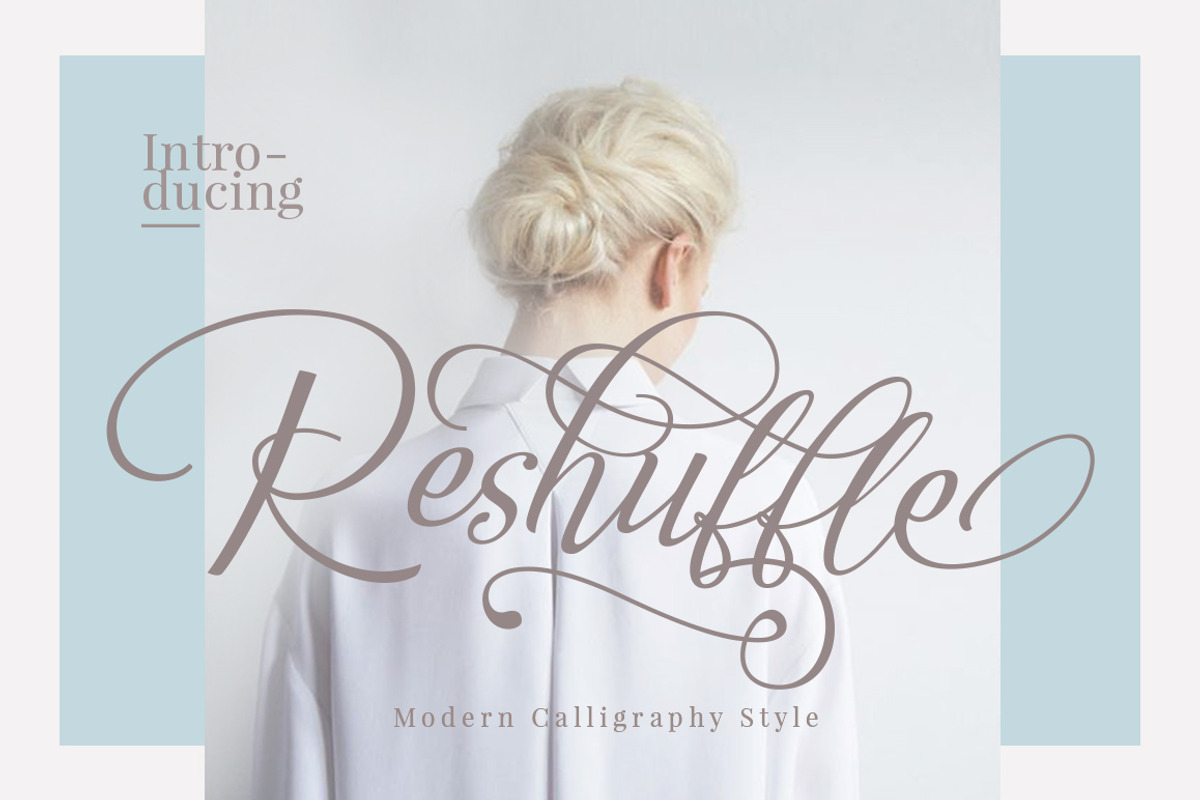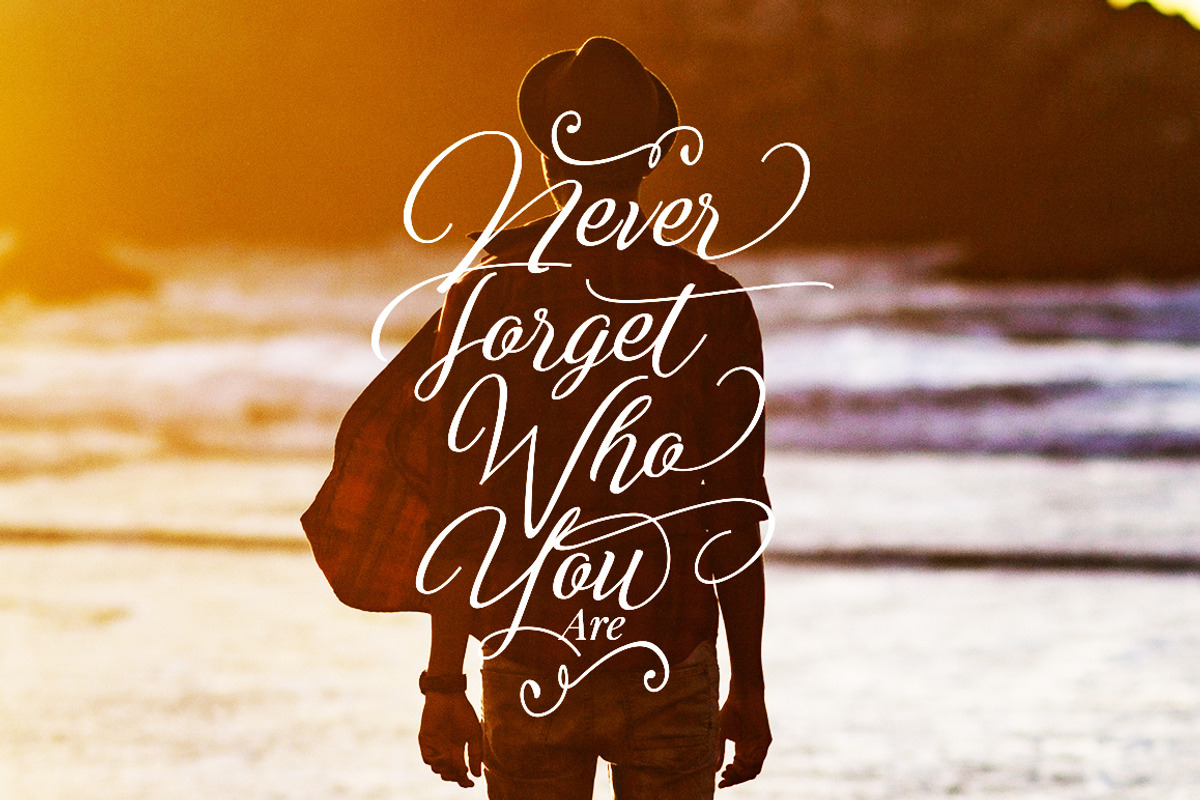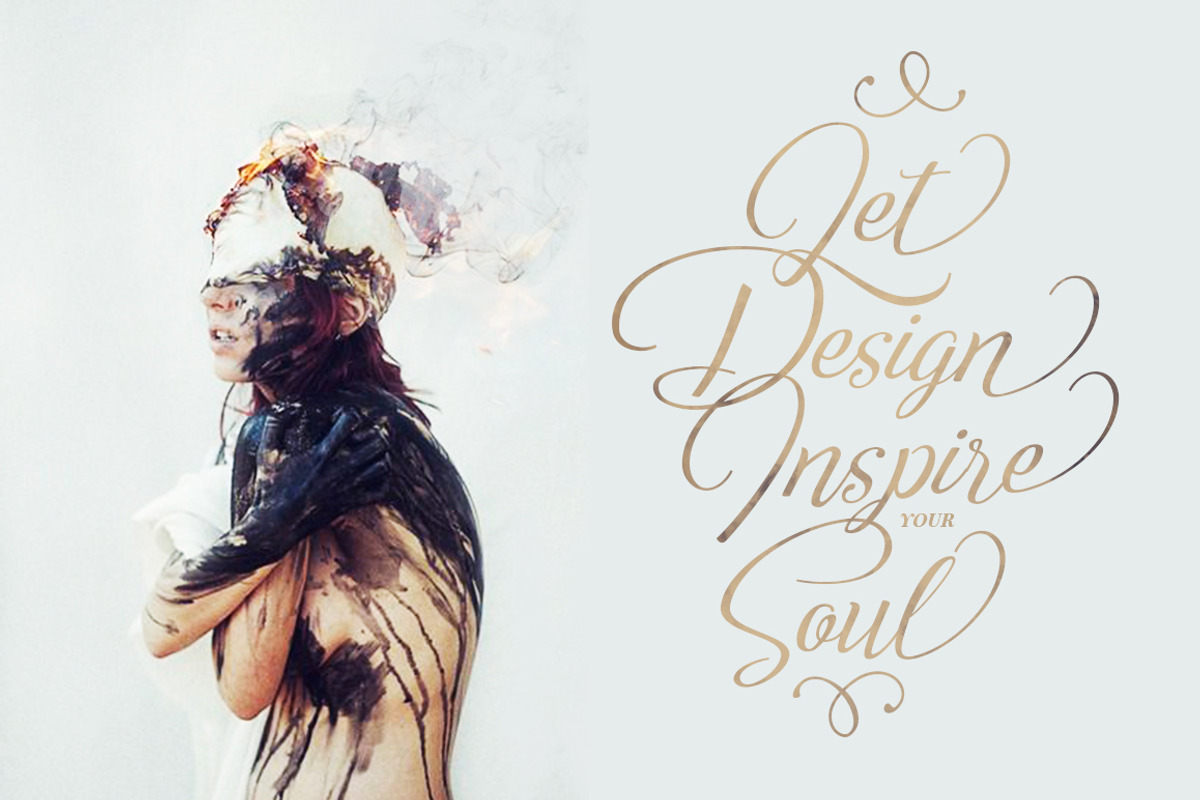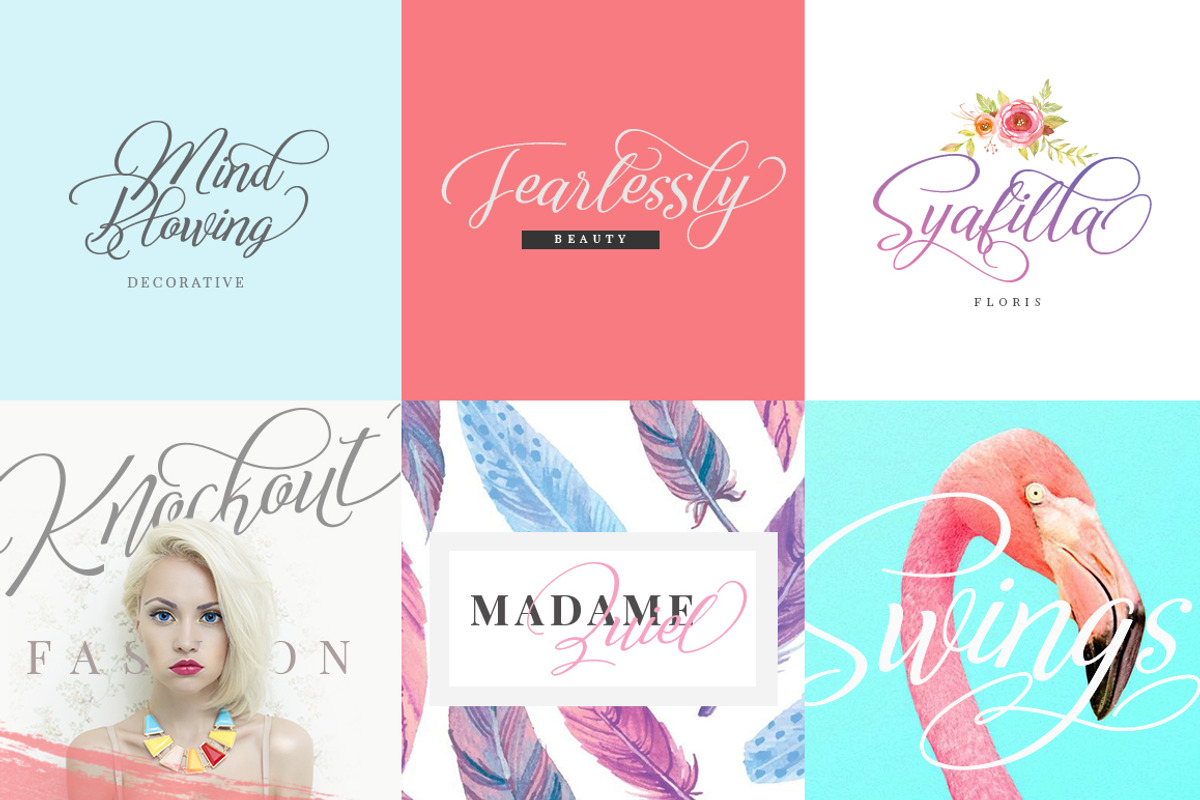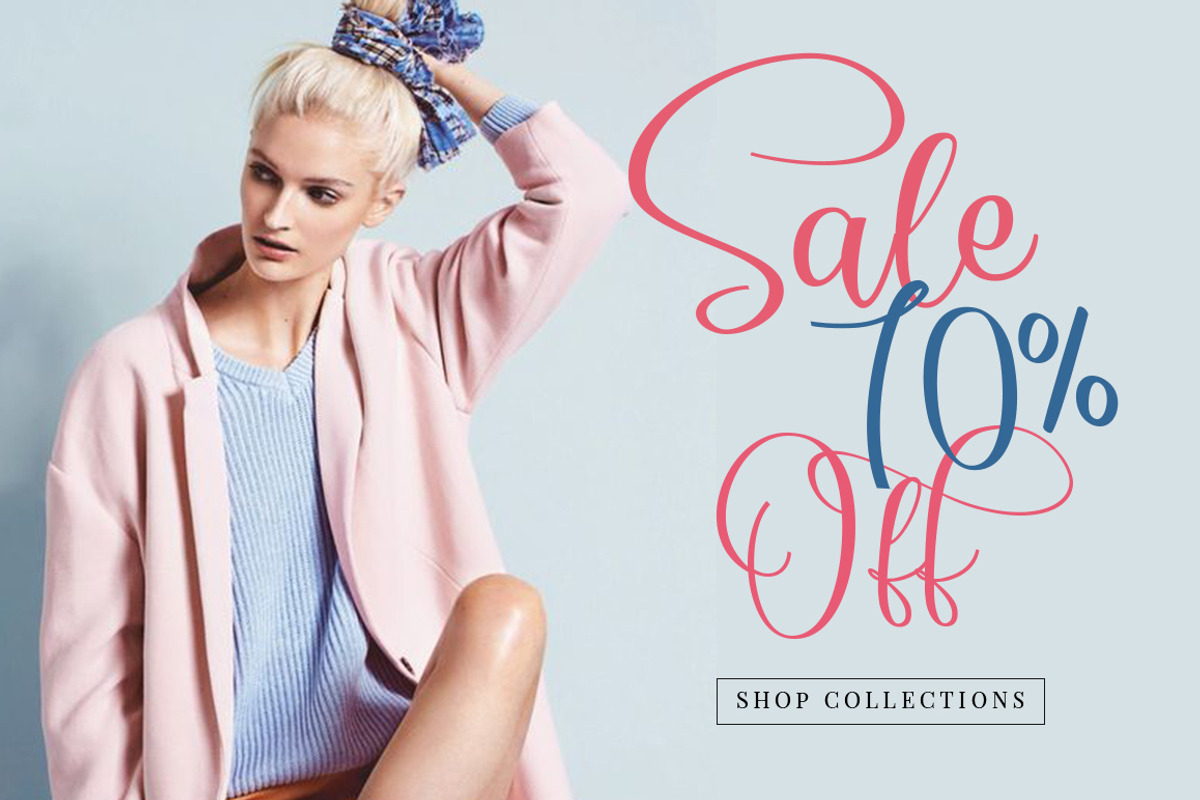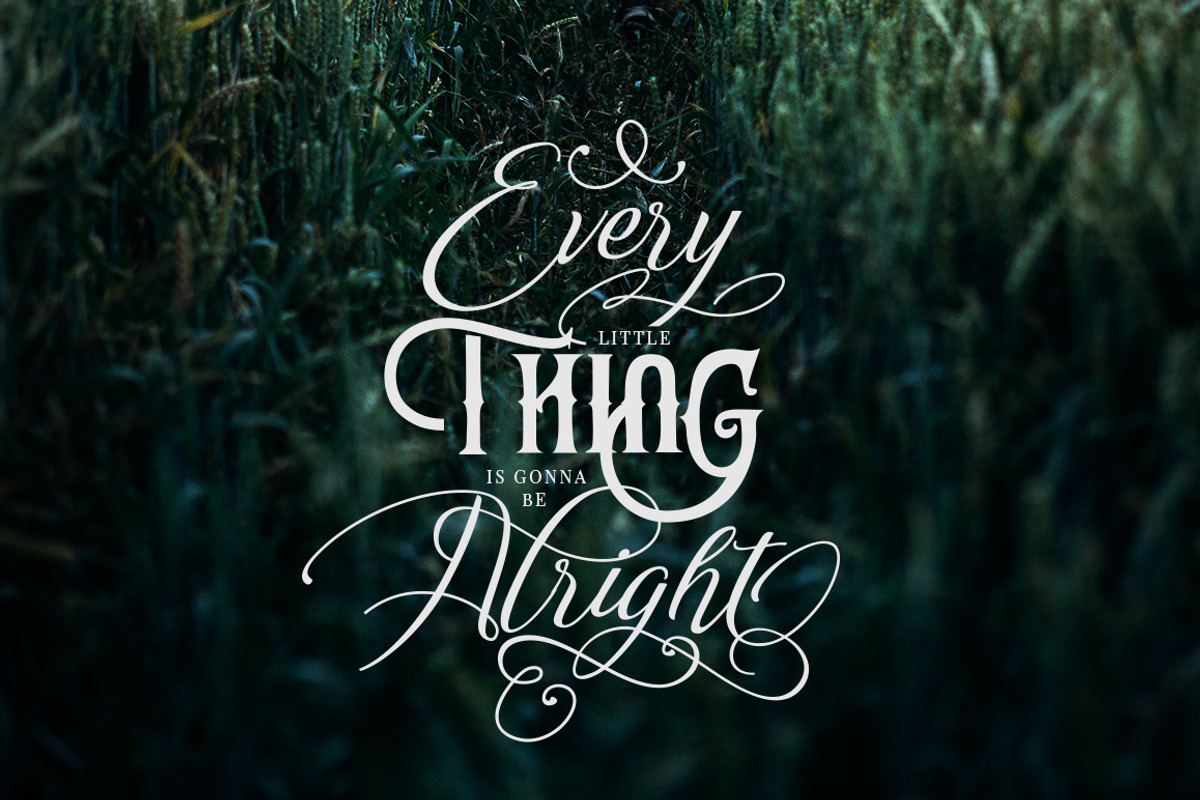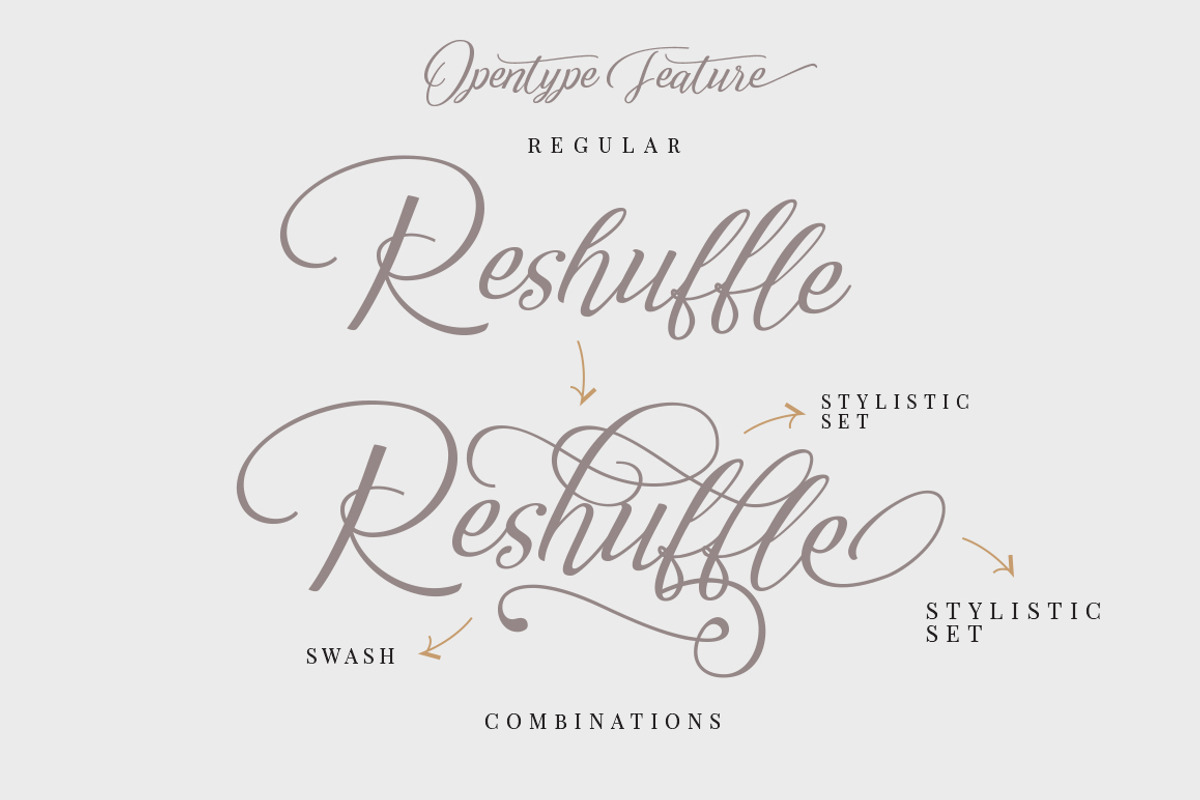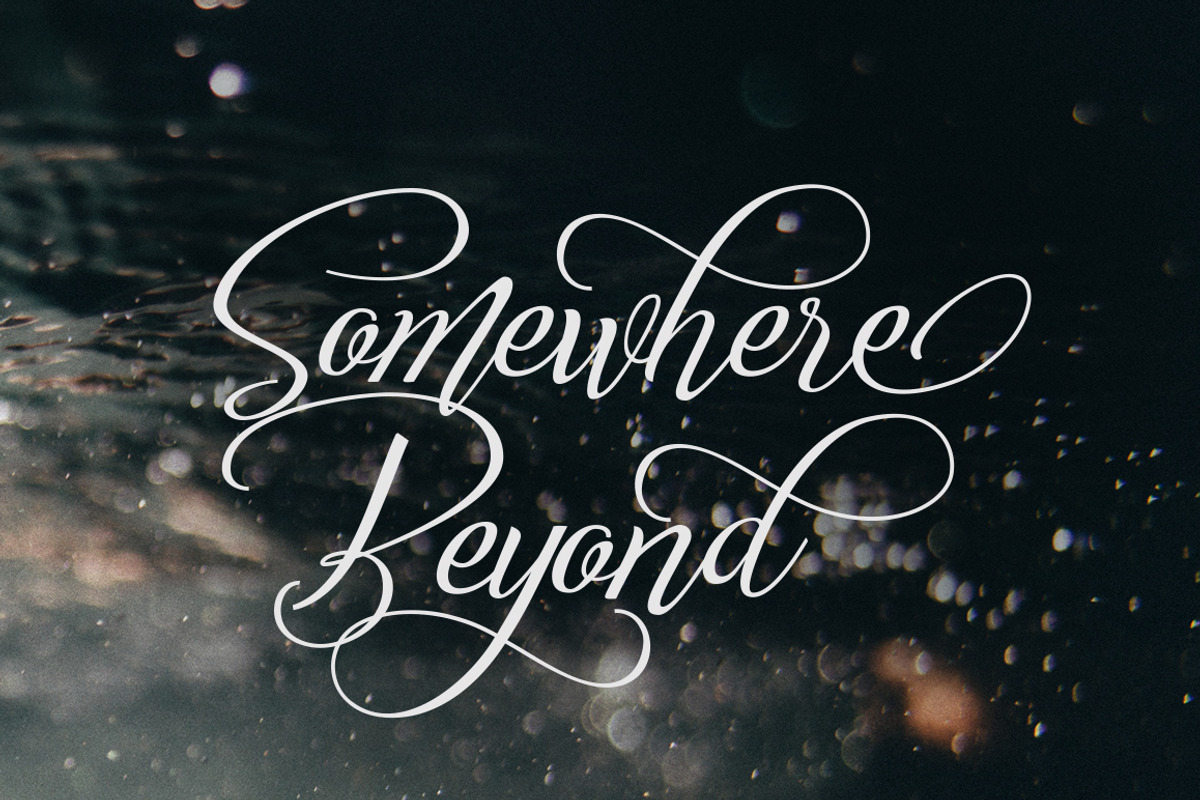
Reshuffle Script Font Set
Reshuffle Script Font Set by Dirtyline Studio is a font selected for branding, posters, packaging, typography.
- Initial Alternates
- Terminal Alternates
- Standard ligatures
- Unique ligatures
- Stylistic sets
- SWASH
- Basic Latin A-Z and a-z
Why Reshuffle Script Font Set is worth a look
Reshuffle Script Font Set by Dirtyline Studio fits naturally into Branding, posters, packaging, typography.